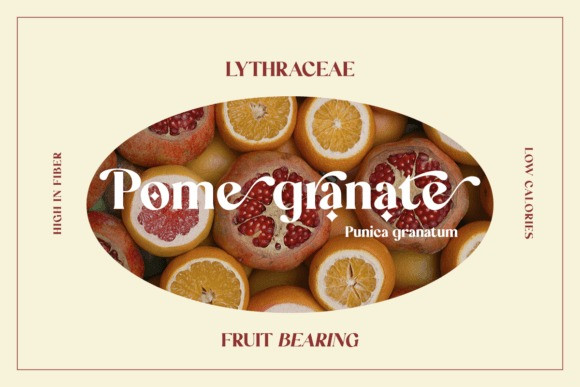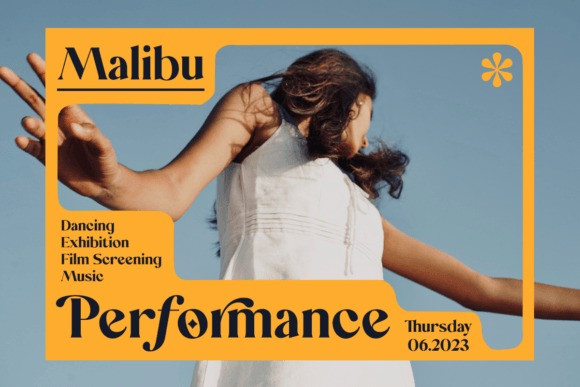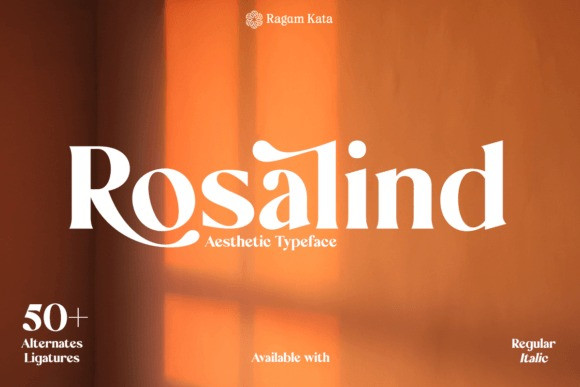
Rosalind Font
Rosalind Font, a stunning modern retro serif font that effortlessly combines aesthetic charm with captivating alternate characters. This typeface falls into the category of modern retro serif fonts and is designed to bring a touch of nostalgia and elegance to your design projects. Furthermore, Rosalind excels in legibility and readability, making it well-suited for a wide range of design applications. Whether you’re working on branding projects, editorial design, packaging, or any other creative endeavor that calls for a modern retro serif font, Rosalind Font will deliver exceptional results.